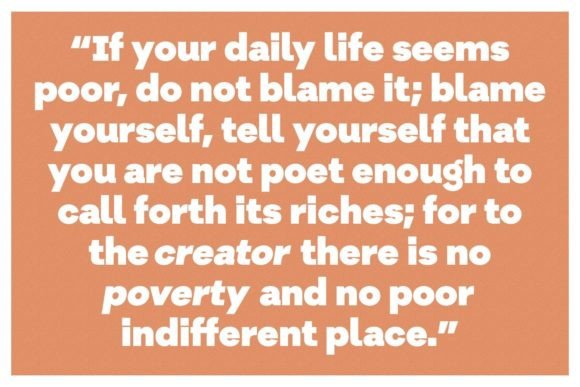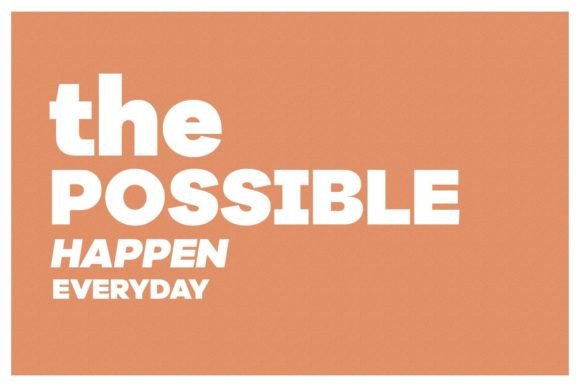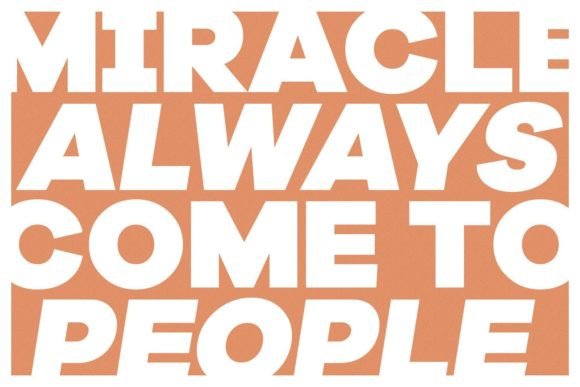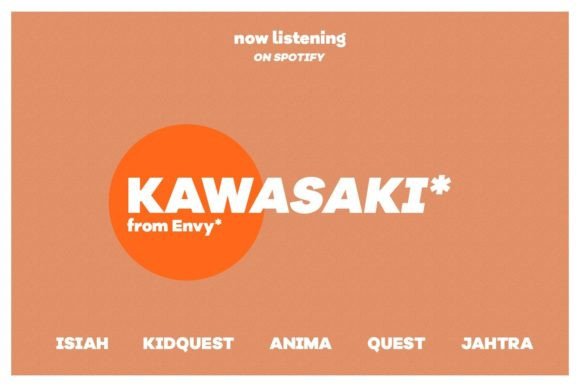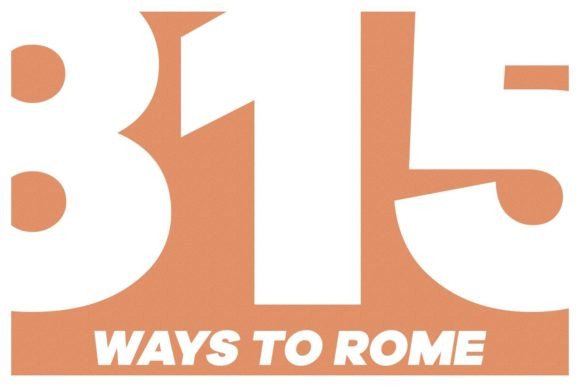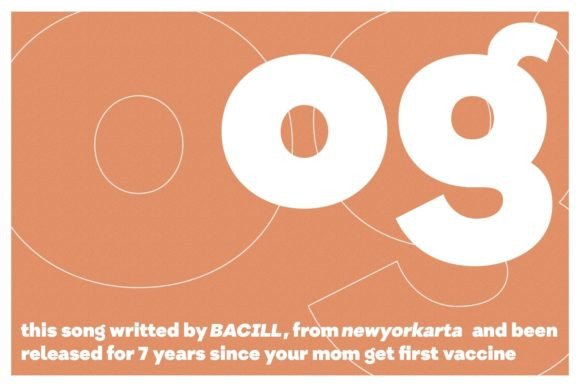
Introduction to Jogler Font
Have you ever stared at a blank canvas, desperate for the perfect font to bring your creative project to life? I know I have. The struggle is real, but what if I told you that there’s a game-changing font that could elevate your designs and leave a lasting impression? Enter the Jogler Font, a modern, bold yet elegant sans serif font that’s about to become your new best friend.
Whether you’re a seasoned designer or just starting out, the Jogler Font is a valuable addition to your design resource arsenal. Its high-quality, versatile design makes it perfect for a wide range of creative projects, from brochures and business cards to websites and social media graphics. And the best part? It’s available for free download, so you can start experimenting with it right away.
With its transparent background and sleek aesthetic, the Jogler Font is sure to bring a touch of sophistication to your designs. So why settle for anything less? Give the Jogler Font a try and discover a whole new world of creative possibilities.
Key Features of Jogler Font
- High-quality font design suitable for creative projects, including digital art and graphic design.
- Transparent background, allowing for easy layering and customization in design applications.
- Includes multiple styles and weights, providing versatility for different design needs.
- High-resolution design (up to 1024 x 1024 pixels), suitable for printing and large-scale displays.
- Perfect as a design resource for artists, designers, and creatives working on various projects.
Honest Review: Jogler Font
I recently stumbled upon the Jogler Font while searching for a free download to enhance a creative project. I was impressed by its high quality and unique design.
- ✨ Unique and playful design that’s perfect for creative projects.
- ✨ High-quality typography that’s crisp and clear.
- ✨ Transparent background, making it easy to overlay on various backgrounds.
One of the things I appreciate about the Jogler Font is its versatility. It’s suitable for a wide range of design resources, from logos to graphics and even text-based designs.
- ⚠️ Limited font sizes and styles available for free download.
- ⚠️ Not ideal for formal or professional designs, as it has a playful tone.
Overall, I’m quite impressed with the Jogler Font. It’s a great addition to any designer’s collection, especially for creative projects that require a fun and quirky touch.
Tips for Getting the Most Out of the Jogler Font
For a high-quality design, use the Jogler Font with a transparent background. This will allow you to combine the font with other design elements seamlessly. Additionally, experiment with different font sizes and styles to create a visually appealing design.
Common Use Cases for the Jogler Font
The Jogler Font is a versatile design resource suitable for various creative projects. Use it to create eye-catching headlines, add a touch of elegance to your designs, or create a consistent brand identity. With its high-quality design, the Jogler Font is an excellent choice for any design project.
Alternatives to Jogler Font
Open Sans is a popular, high-quality sans-serif font that is perfect for creative projects requiring a clean and modern design. It’s available for free download and comes with a transparent background. Open Sans is ideal for use in headings, body text, and titles, making it a versatile design resource. It compares to Jogler Font in its modern and clean aesthetic, but Open Sans is more versatile and has a larger character set.
Lato is a elegant sans-serif font designed specifically for digital use. It’s a high-quality font that’s perfect for creative projects requiring a sophisticated and modern design. Lato is available for free download and comes with a transparent background, making it a great design resource for designers. It compares to Jogler Font in its modern and clean aesthetic, but Lato has a more elegant and refined feel.
Montserrat is a geometric sans-serif font that’s perfect for creative projects requiring a modern and urban design. It’s available for free download and comes with a transparent background, making it a great design resource for designers. Montserrat compares to Jogler Font in its modern and clean aesthetic, but Montserrat has a more geometric and industrial feel.